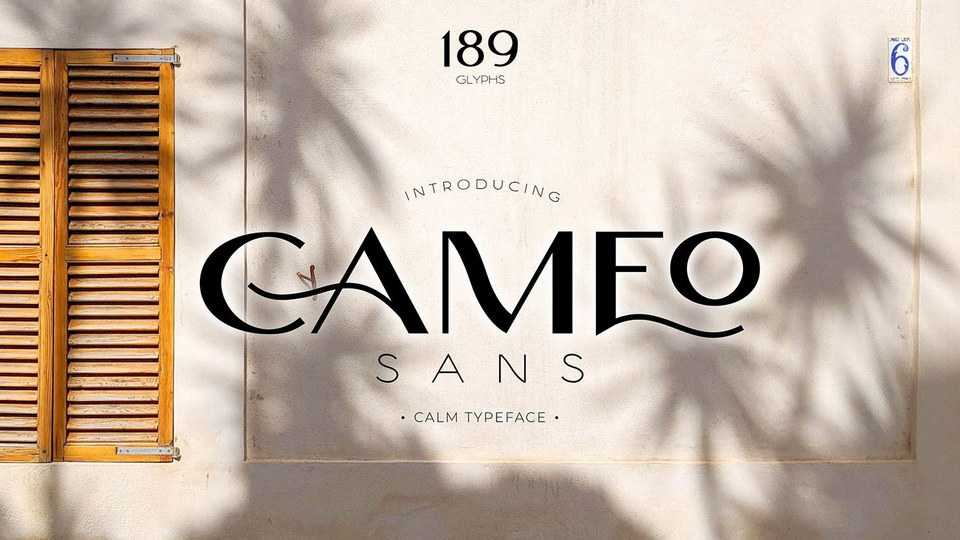
Download Cameo Sans font, a neat and calming sans serif typeface. Cameo font is perfect for an elegant logo, interior magazine, beauty product, packaging product, quotes, or simply as a stylish text overlay to any background image.
Designer: ikiiko